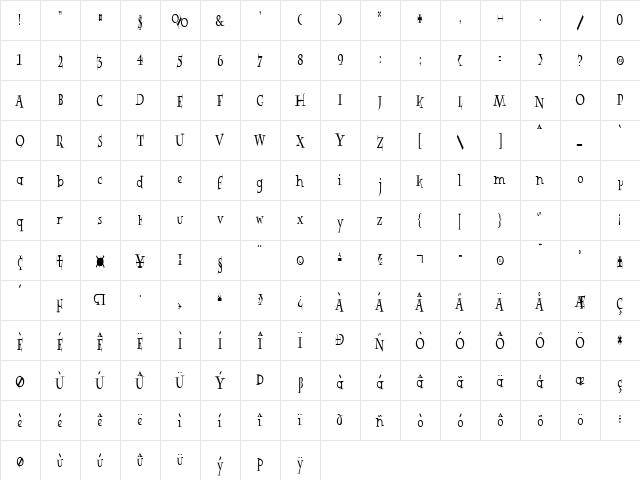
Rowling Stone XNarrow Regular
Design Context for Rowling Stone XNarrow Typeface
Rowling Stone XNarrow offers clean, dependable letterforms without strong stylistic allegiance, making it a practical choice for designers who need flexibility. Its narrow stance lets it pack a punch even in space-constrained designs.
Pro Tip: Use Rowling Stone XNarrow in both headline and body roles to test its range before committing to a single application.